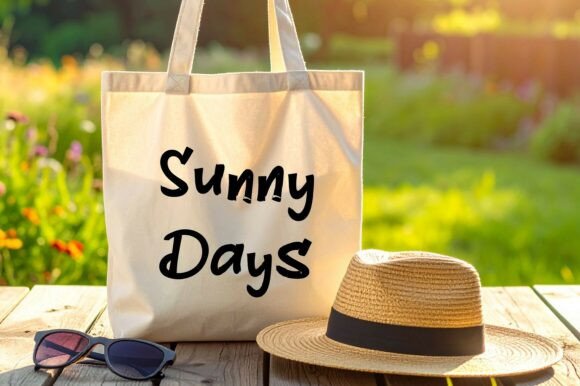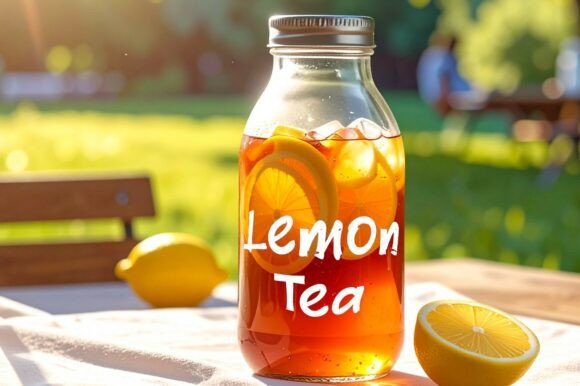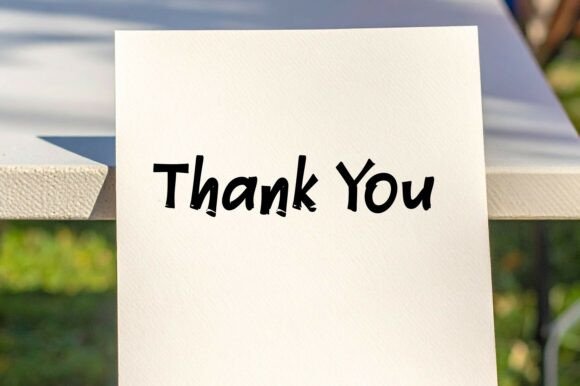
Introduction to Bawa Kipas Font
Bawa Kipas is a lively and charming script font that captures the spontaneity of natural handwriting.
Its playful, flowing strokes and casual elegance evoke a sense of warmth, lightheartedness, and personal touch This font is perfect for designs that aim for a friendly, approachable, and cheerful vibe, such as summer-themed graphics, personalized invitations, product labels, or social media content.